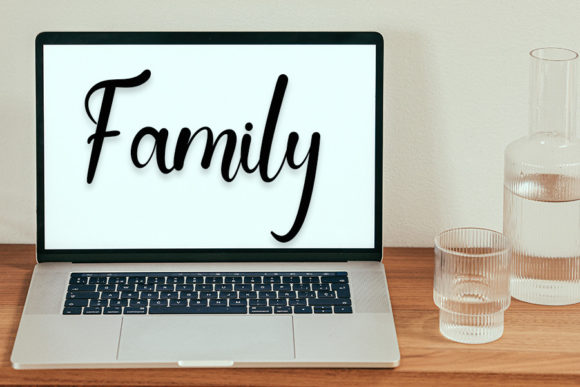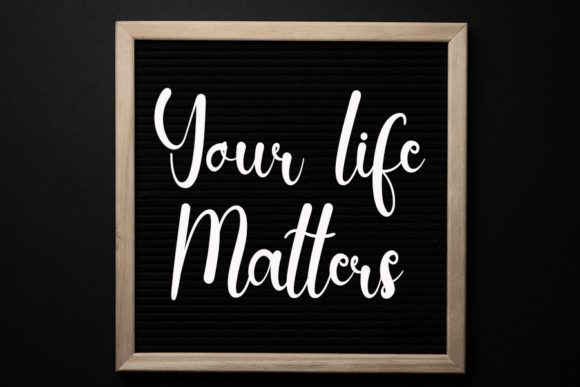
Acting Style Font
db-ku.com - Script & Handwritten -- Acting Style is a friendly handwritten font, carefully designed to become a true favorite. It maintains its classy calligraphic influences while feeling contemporary and fresh.